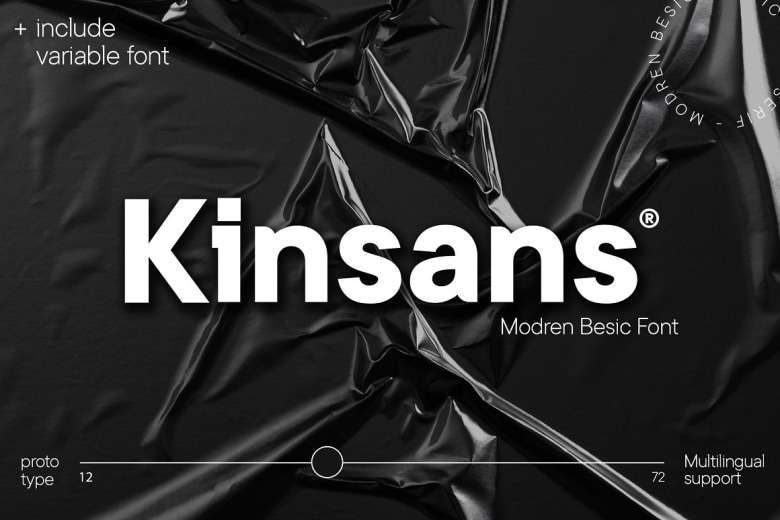
Kinsans Font
Kinetic is a modern and cool sans-serif font. It can easily be matched to an incredibly large set of projects, so add it to your creative ideas and notice how it makes them stand out!
Kinsans Sans Serif Font